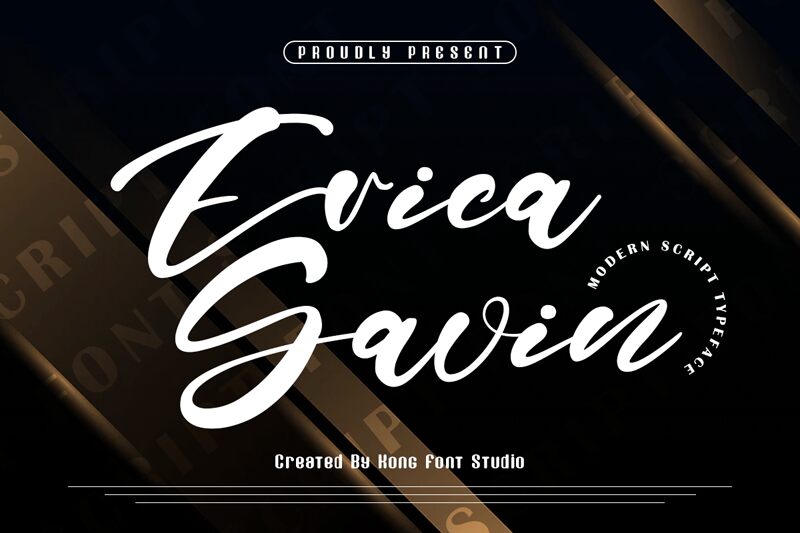
Erica Gavin
Introducing Erica Gavin, an inspiring script font designed by Kong Font. Its bold weight makes it perfect for crafting logos, invitations, social media posts, and more. Let your creativity shine with this beautiful typeface!